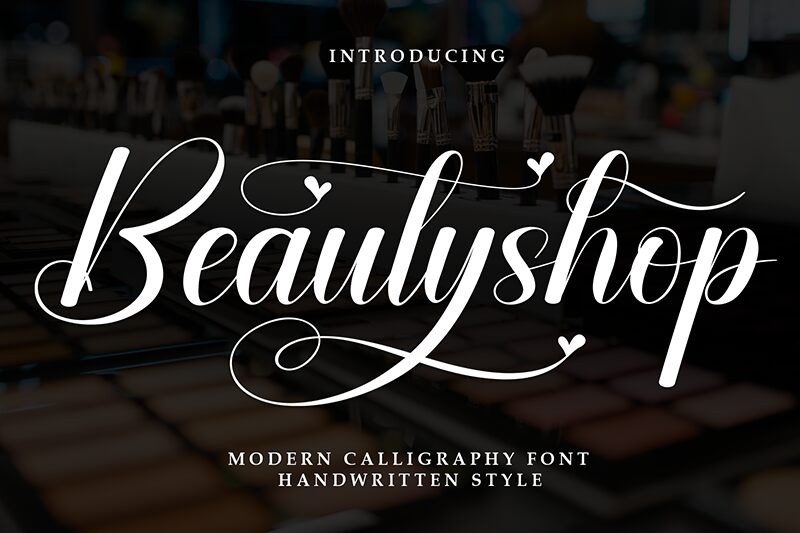
Beautyshop
Beautyshop font by Andi Moz is an elegant and expressive calligraphy font. It’s glamorous, sophisticated, and connected to promote a seamless flow in both individual words and paragraphs. Lines are thin yet strong, creating a charming contrast without being overwhelming. An ornamental vibe gives the font an original persona that fosters more stylistic designs and artwork.
Beautyshop is perfect for apparel fashion branding, signage systems, posters, marketing campaigns, book covers, logos/trademarks, websites/UX designs, animated titles/intros/outros, wedding invitation cards/stationary packages/decor elements (besides ceremony books), plus other suitable ideas you may have in mind!